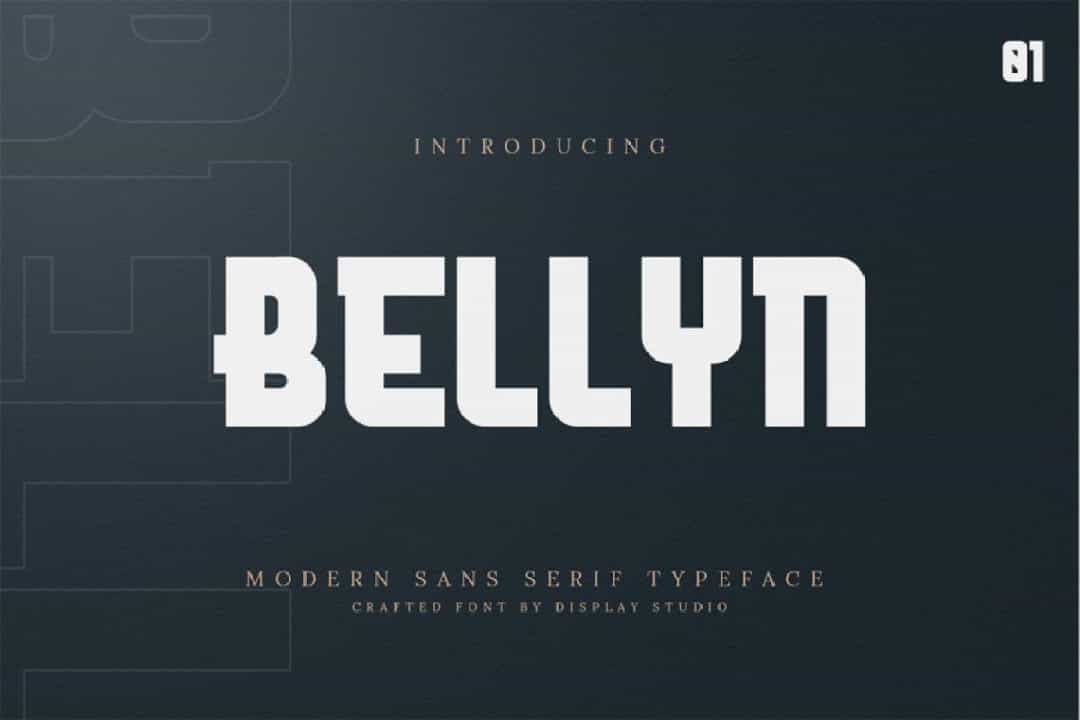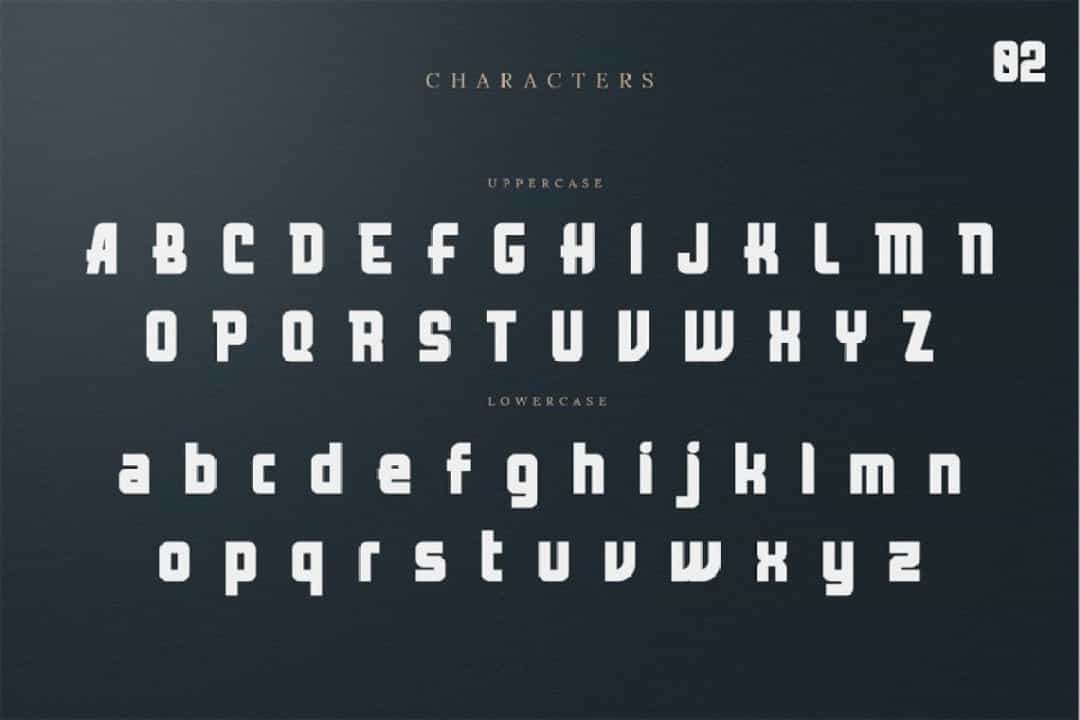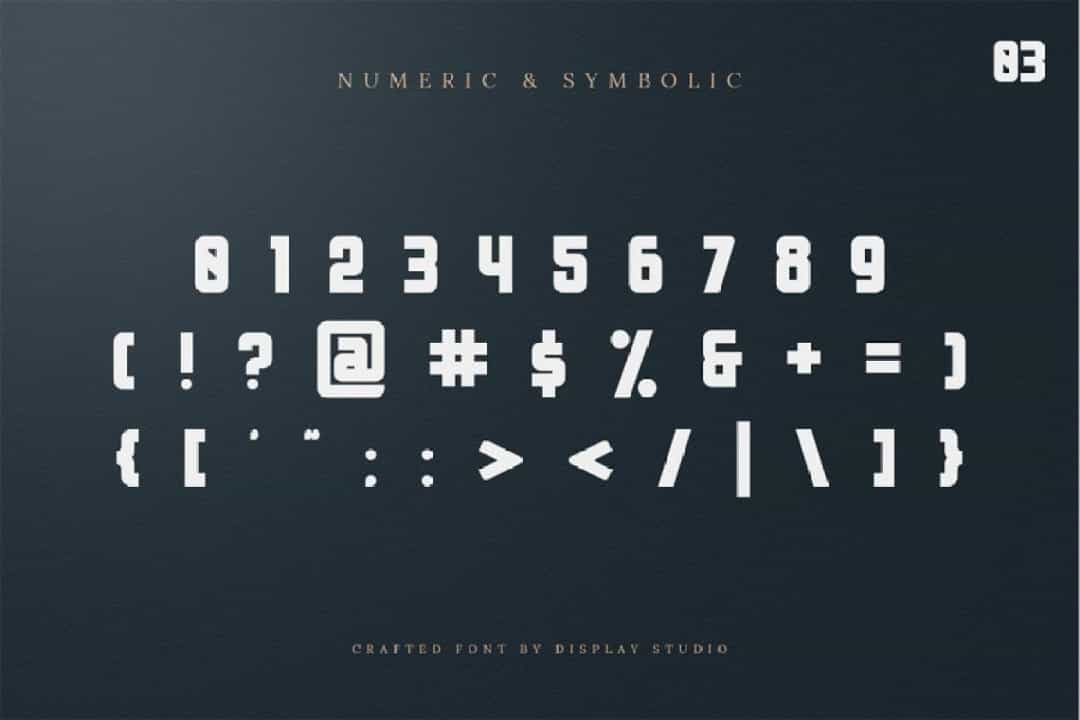
Bellyn is an eye-catching sans serif typeface created with care to stand out in any environment, making an impressionful first impression and becoming one of the go-to choices among designers and users alike. Its relaxed style makes it look very simple yet readable, making Bellyn an adaptable solution. Perfect for busy backgrounds as well as stand-in headlines!